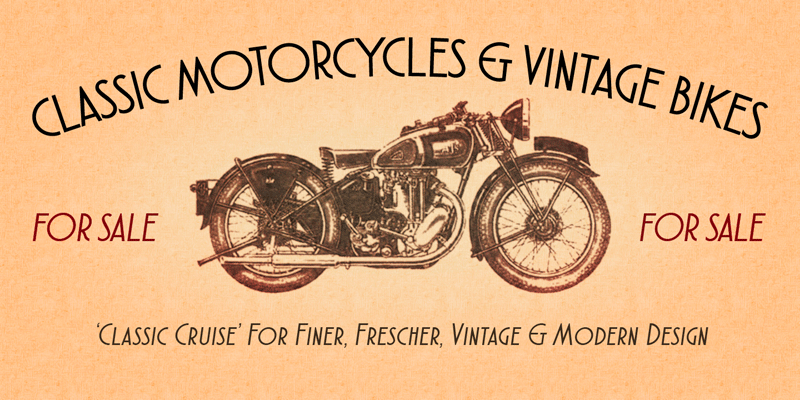
Thank you for the donations and keeping me alive! About this font family Kustomtype’s “Atlantic Cruise” font is one of the fonts that was used in the 50’s for travel and cruise posters. It shows the typical look of that era but has been refined. The Atlantic Cruise fonts are based on geometric forms which have been optically corrected for a better legibility. Cruise suites perfectly well for your graphic design applications, ranging from editorial and corporate design to all your other graphic work. The Cruise family is coordinated into letterforms, metrics, and weights to work better together. Why still looking for foreign or strange types for your posters, headtext, editoral design, magazines, etc.? Enjoy your Cruise! ******************* NOTE: THIS IS A DEMO-FONT FOR PERSONAL USE ONLY! If you are going to use it commercially, then a donation is required. You can also buy the full version, which comes a family of the font, with perfect kerning, embedding rights, all glyphs and extras. You CANNOT use this font in games, apps, books,software or distribute it see the full liscence on my website. Have respect for the Type Designers work, so keep the Type Designer alive! ******************* Purchase the full commercially licensed version at: http://www.myfonts.com/fonts/kustomtype/annexxus/ ******************* For questions or proposals, feel very free to mail info@kustomtype.com More... |